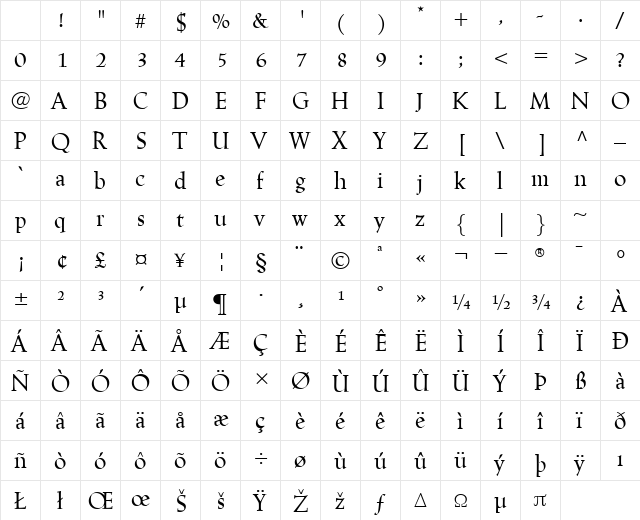
LinotypeTrajanus Roman
Design Context for LinotypeTrajanus
LinotypeTrajanus is a composed and adaptable typeface that performs quietly and consistently across a wide range of design contexts.
Pro Tip: Use LinotypeTrajanus in both headline and body roles to test its range before committing to a single application.